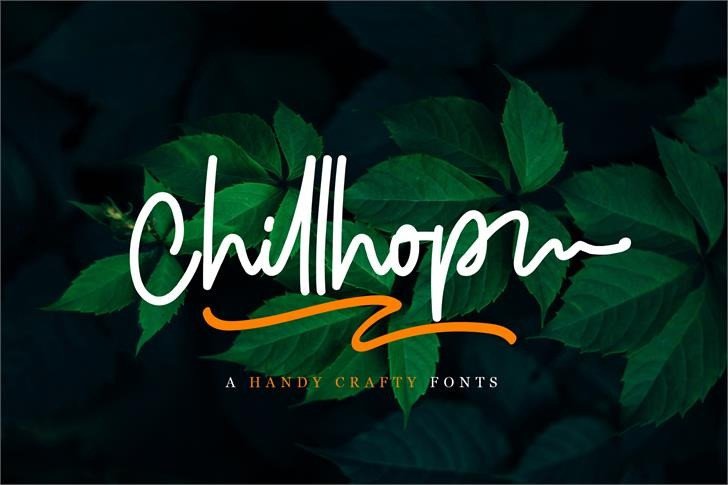
Chillhop Script Font Free
Introducing Chillhop Font. This is a shortened version of Colintha Handy Crafty Font.A handwritten font which is very elegant and modern for you to use and your design interests. It’s designed and shared by Crump Hand.
It’s the perfect collection for any design project that requires a luxury and charming feel. Use it to turn any design project into a true standout! be it for logos, branding names, posters, podcasts and so on. This is perfect for you all.